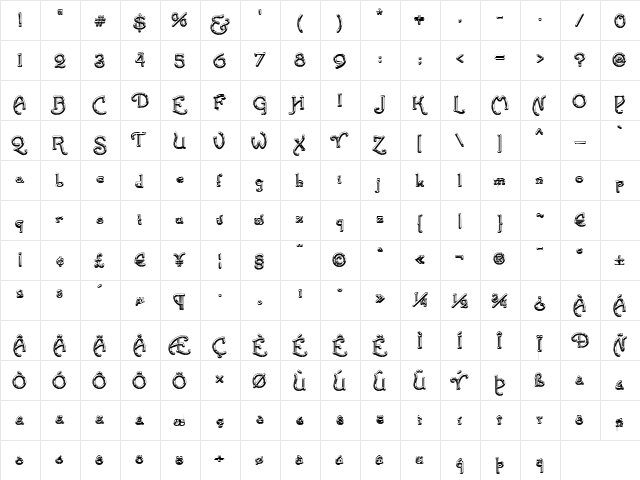
Santa'sSleighFull 'Deluxe' Regular Font Preview
Santa'sSleighFull 'Deluxe' Regular
Design Context for Santa'sSleighFull 'Deluxe' Typeface
Santa'sSleighFull 'Deluxe' is a composed and adaptable typeface that performs quietly and consistently across a wide range of design contexts.